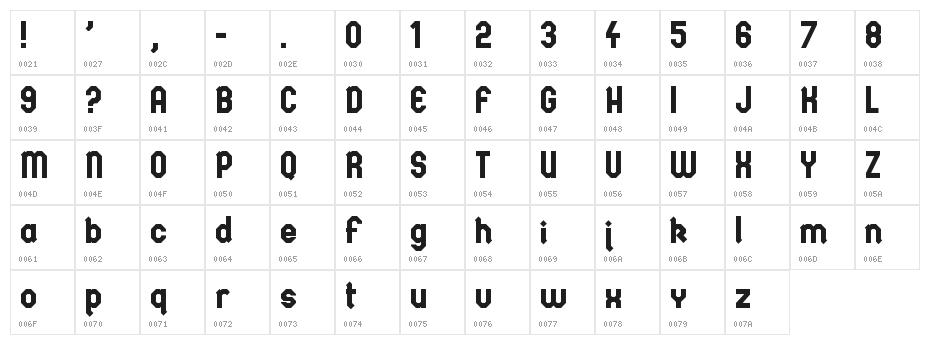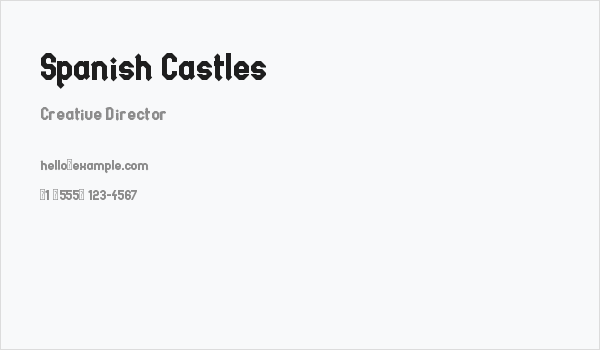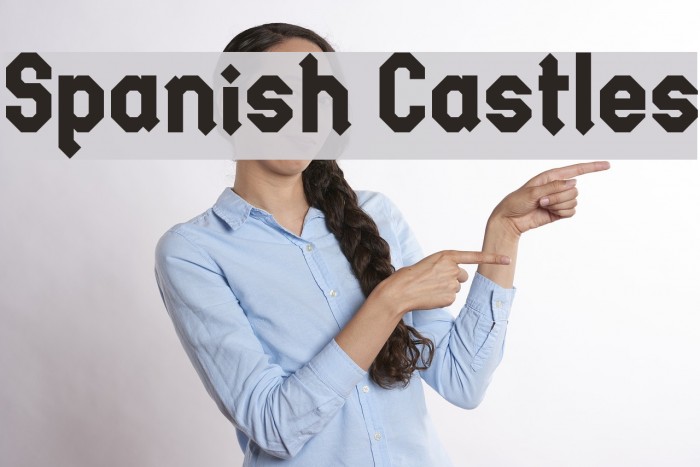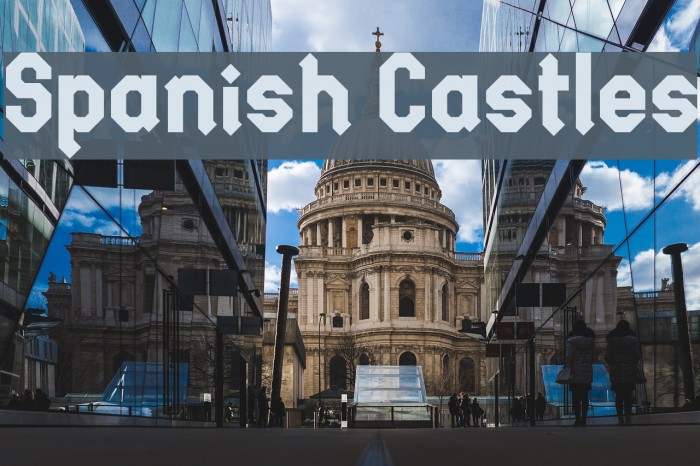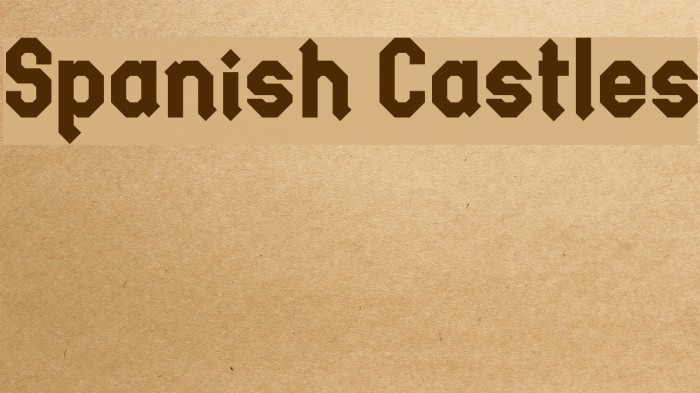
Spanish Castles Font
Spanish Castles Description
This font features a bold and angular design, reminiscent of medieval architecture and Gothic influences. The characters are sharply defined with a strong presence, making them ideal for impactful displays. The uppercase letters are particularly striking, with their geometric forms and pronounced serifs, while the lowercase letters maintain a consistent style, offering a cohesive look. The numerals and special characters follow the same bold and structured aesthetic, ensuring uniformity across all text. This font's unique style is both decorative and functional, suitable for projects that require a touch of historical or dramatic flair.
SPANISH-CASTLES UPPERCASE
SPANISH-CASTLES LOWERCASE
SPANISH-CASTLES OTHER CHARS
| Proposed Projects | Perfect for use in branding, posters, book covers, and any project requiring a medieval or dramatic theme. |